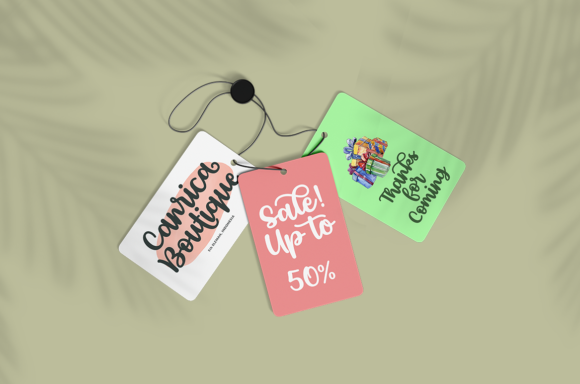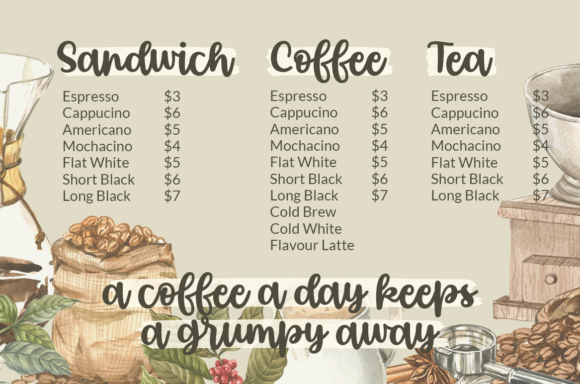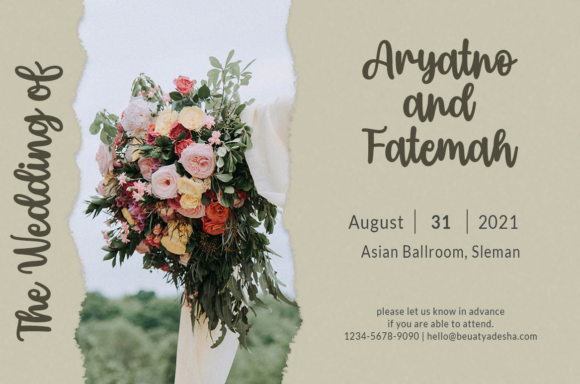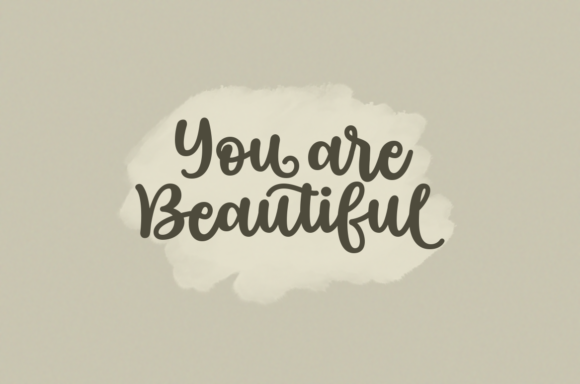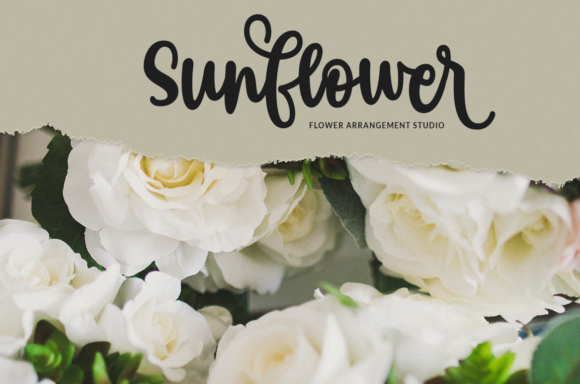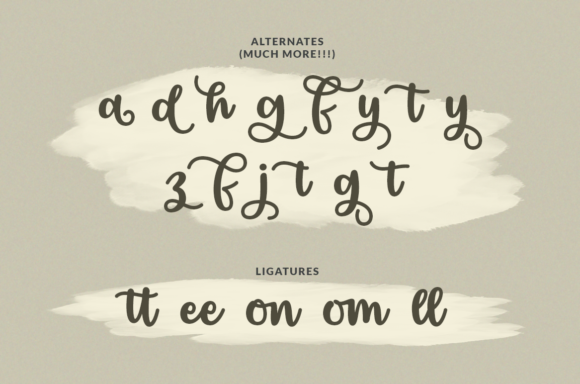
Adding Luxury to Your Designs: The Beauty Adesha Font
Have you ever stared at a blank page, waiting for the perfect font to bring your design project to life? For designers, the quest for the perfect typeface can be a daunting one. But what if I told you that there’s a font that can add a touch of luxury and romance to your work, making it truly unforgettable?
Meet the Beauty Adesha Font, a stunning calligraphy typeface that will transport your designs to a world of elegance and sophistication. With its flowing characters that dance along the baseline, this font is the perfect choice for designers who want to create a lasting impression. Whether you’re working on a wedding invitation, a luxury brochure, or a high-end brand identity, the Beauty Adesha Font is sure to add a touch of magic to your designs.
Key Features of “Beauty Adesha Font”
- Font Style: This font features a unique blend of modern and traditional design elements, making it suitable for various applications.
- Unique Characteristics: Features intricate details and ornaments, making it a great choice for designers looking to add a touch of elegance and sophistication to their work.
Beauty Adesha Font Review
Beauty Adesha Font is a beautiful and elegant script font that can add a touch of sophistication to your design projects. Here are some of its notable features: ✨
- It has a beautiful, flowing script style that is perfect for titles, headings, and other design elements where a touch of elegance is needed.
However, like any font, Beauty Adesha also has some limitations: ⚠️
- It may not be suitable for body text, as it can be difficult to read in smaller sizes.
- The font may not be as versatile as some other fonts, and may not work well in certain design contexts.
Overall, I think Beauty Adesha Font is a great addition to any designer’s toolkit. It’s perfect for projects where a touch of elegance and sophistication is needed. With its beautiful script style and high level of customizability, it’s a font that’s sure to impress. Just be sure to use it judiciously and in the right contexts.
Getting the Most Out of Beauty Adesha Font
Use the Beauty Adesha Font for creating elegant and sophisticated designs, such as wedding invitations, luxury branding, and high-end packaging.
Combine the font with other elegant elements, such as floral patterns and metallic textures, to create a luxurious and opulent look.
Beauty Adesha Font is ideal for:
Luxury branding and packaging
High-end fashion and beauty design
For optimal readability, we recommend using Beauty Adesha at font sizes between 12pt and 18pt. However, this may vary depending on the specific design, intended audience, and viewing distance.